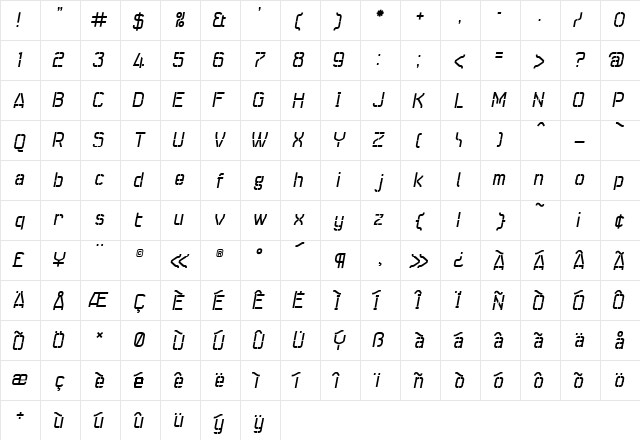
Seize Regular
Design Context for Seize Typeface
Seize offers clean, dependable letterforms without strong stylistic allegiance, making it a practical choice for designers who need flexibility.
Pro Tip: Use Seize in both headline and body roles to test its range before committing to a single application.